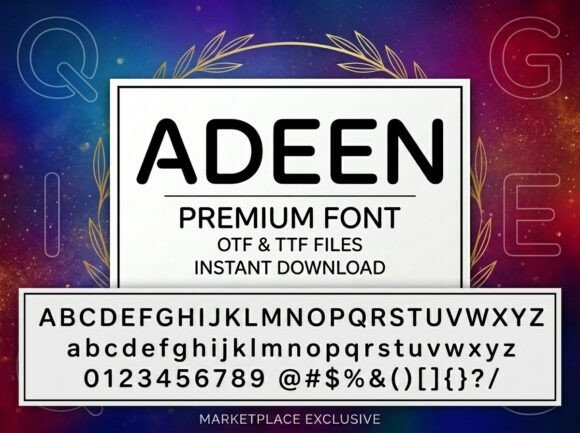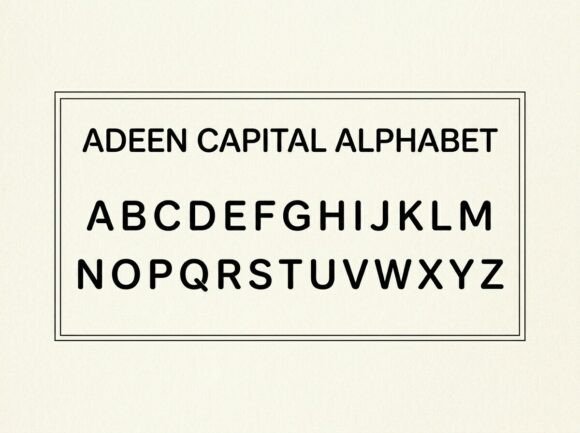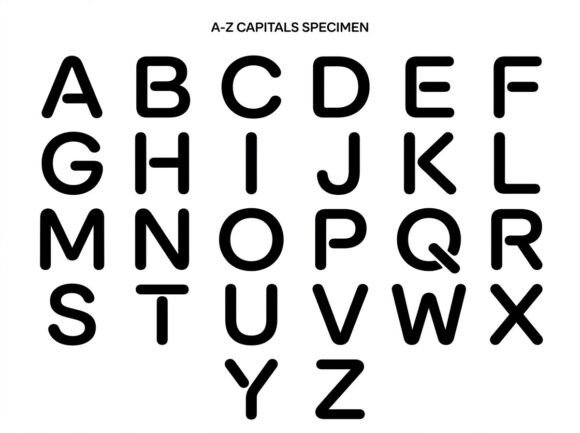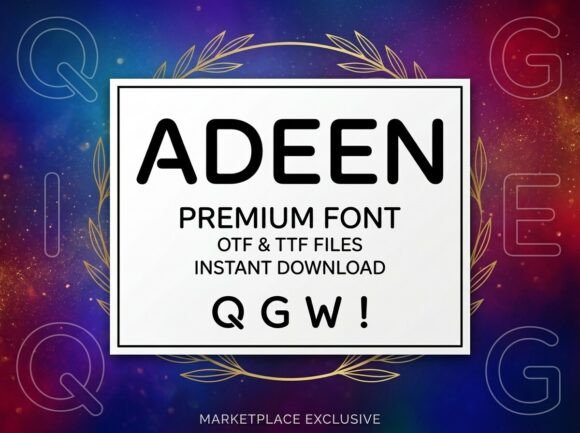
Adeen Font: The Epitome of Modern Minimalism and Professional Clarity
In the realm of typography, finding the perfect balance between modern minimalism and professional clarity is a quest that designers and crafters embark on with each new project. It is in this pursuit that Adeen Font emerges as a beacon of excellence, offering a premium sans-serif typeface that embodies the essence of contemporary design while ensuring unparalleled legibility across various media platforms.
The Design Philosophy of Adeen Font
Adeen Font is meticulously crafted with a design philosophy that revolves around clean, geometric letterforms. Its uniform stroke weights and open apertures are not merely aesthetic choices but are fundamental to creating a typeface that is both contemporary and highly legible. This careful consideration makes Adeen an exceptional choice for a wide array of applications, from corporate branding and minimalist web design to high-end editorial layouts and chic social media headers.
Key Features of Adeen Font
- Clean Geometric Letterforms: Adeen’s design is rooted in the principles of modern minimalism, offering a clean and uncluttered aesthetic that appeals to the contemporary sensibilities of today’s design landscape.
- Uniform Stroke Weights: The uniformity of stroke weights across the typeface contributes to its professional clarity, ensuring that every character communicates with equal strength and precision.
- Open Apertures: The open apertures of Adeen’s letterforms enhance its legibility, particularly in digital and small print sizes, where closed or intricate designs may falter.
- Versatile Creative Impact: Adeen is not confined to a single use case. Its versatility allows it to excel in various contexts, from the sleek branding of tech startups to the sophisticated layouts of luxury lifestyle magazines.
Applications of Adeen Font
Adeen’s understated elegance and sophisticated structure make it an ideal choice for designers and crafters looking to imbue their projects with a sense of structured innovation and timeless, polished charm. Here are some of the key areas where Adeen truly shines:
- Corporate Branding: For businesses aiming to project a modern, forward-thinking image, Adeen offers a typographic solution that is both professional and approachable.
- Minimalist Web Design: In the realm of web design, Adeen’s clean lines and simplicity help in creating uncluttered, user-friendly interfaces that focus on content delivery.
- High-End Editorial Layouts: For magazines, journals, and other editorial projects, Adeen brings a level of sophistication and elegance, enhancing the reader’s experience with its clarity and aesthetic appeal.
- Chic Social Media Headers: Adeen helps in creating visually appealing and professional social media headers that stand out in a crowded digital landscape.
Why Choose Adeen Font?
Choosing Adeen Font for your design projects means opting for a typeface that understands the nuances of modern design. Its ability to blend into various design contexts while standing out through its clarity and elegance makes it a valuable asset for any designer or crafter. Whether you’re laying the foundation for a tech startup’s brand identity or crafting the visual narrative for a luxury lifestyle brand, Adeen ensures that your message is conveyed with precision, sophistication, and a touch of modern minimalism.
Adeen Font is more than just a typeface; it’s a design solution that caters to the evolving needs of the creative industry. With its perfect blend of modern minimalism and professional clarity, Adeen is poised to become a go-to choice for designers and crafters worldwide. Its versatility, elegance, and legibility across digital and print media make it an indispensable tool in the quest for typographic excellence. Embrace Adeen Font in your next project and experience the transformative power of well-crafted typography.